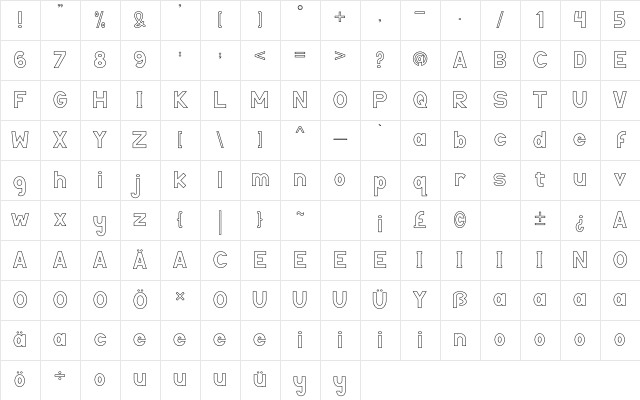
Complete BetterOutline Regular glyph index. Displaying only characters natively supported by BetterOutline Regular font.
BetterOutline is built around its visual character rather than neutral utility - its distinctive forms are designed to make an impression at display sizes.
Font Pairing: Pair with a clean neutral sans-serif for body copy to let BetterOutline's character lead without overwhelming the composition.
Pro Tip: Use BetterOutline exclusively at display sizes - it was designed to be seen, not read at length. Let a neutral companion handle body copy.